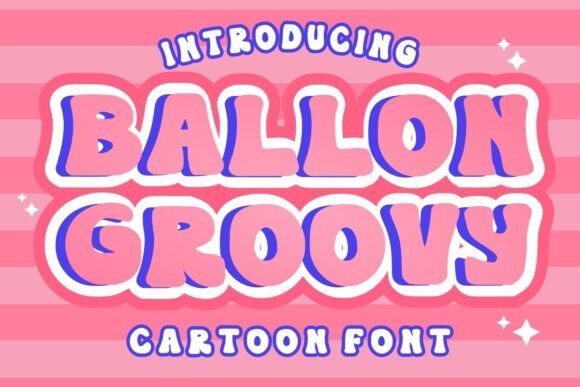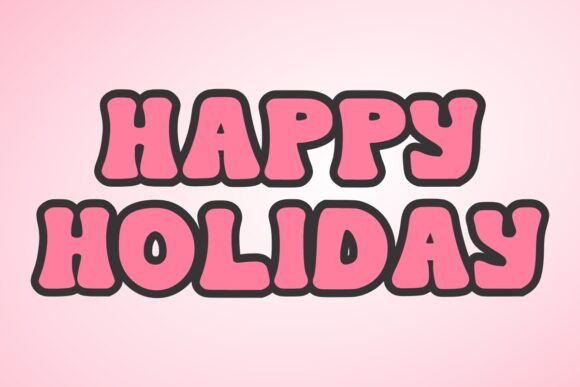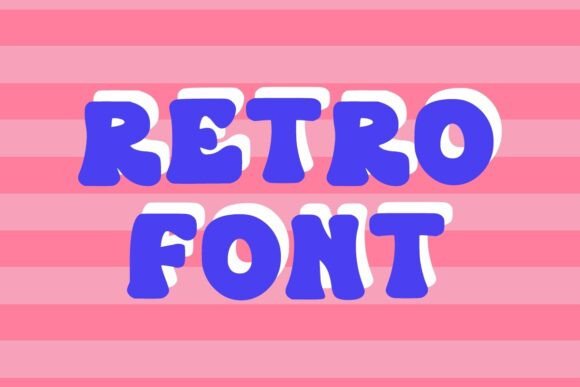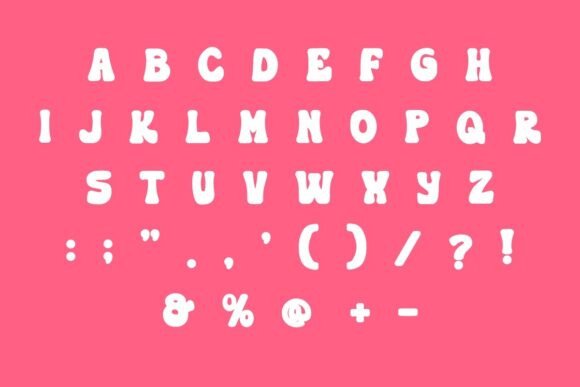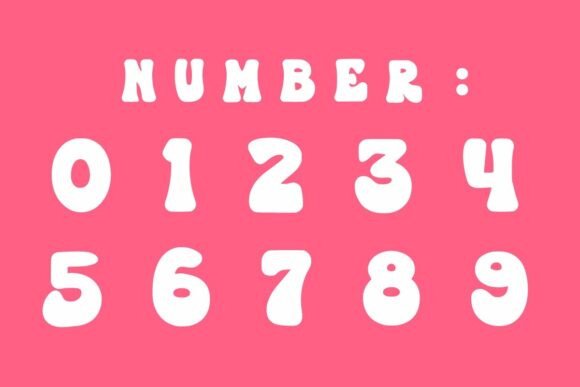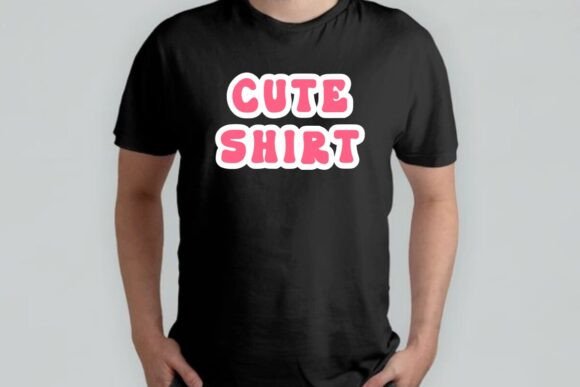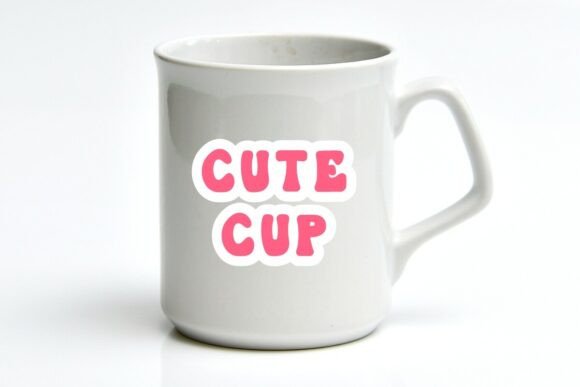
The Groovy World of Design
Who hasn’t felt the rush of creativity when brainstorming a new project? The ideas start flowing, and before you know it, you’re envisioning a vibrant poster, a funky logo, or a whimsical invitation. This is the moment when the perfect font can make all the difference. Imagine a font that captures the essence of the 60s and 70s, with its playful curves and dynamic flair.
Enter the Balloon Groovy Font, a fun and retro display font that’s sure to add a unique charm to your designs. Whether you’re creating a craft project, a gift tag, or a banner for a special event, this font is the perfect companion. Its versatility and charm make it an invaluable asset for designers looking to add a touch of whimsy to their work.
Key Features of Balloon Groovy Font
- Font Family: Balloon Groovy Font offers a unique, hand-drawn design with a playful and whimsical feel.
- Unique Characteristics: Features a distinctive, bubbly design with irregular shapes and lines, adding a touch of personality to any text.
Balloon Groovy Font Review
Overall, I’m quite fond of the Balloon Groovy Font. There are some aspects that genuinely shine through. ✨ Its playful and whimsical nature makes it perfect for creative projects or any design that requires a carefree vibe. The font’s rounded edges and bubbly feel add a sense of fun and approachability, which can be a great asset for certain types of designs.
Here are some specific features that I think work well:
- Highly customizable: The font can be easily adjusted to fit any color scheme or design style.
- Great for illustrations and graphics: The font’s playful nature makes it an excellent choice for illustrations and graphics that require a fun and energetic feel.
- Unique and eye-catching: The font’s distinctive design is sure to grab attention and stand out in a crowded design landscape.
However, there are some limitations to consider: ⚠️ The font may not be suitable for more formal or professional projects, as its playful nature may come across as unprofessional. Additionally, the font’s high customizability can sometimes lead to a disjointed or inconsistent look if not used carefully.
Overall, I think the Balloon Groovy Font is a great choice for designers who want to add a touch of whimsy and fun to their projects. With some careful consideration of its limitations, it can be a valuable addition to any designer’s toolkit.
Use the Balloon Groovy Font to add a playful and whimsical touch to your designs. It’s perfect for creating eye-catching headlines, social media graphics, and party invitations.
The Balloon Groovy Font is ideal for:
- Creating playful and fun designs
- Adding a whimsical touch to party invitations and social media graphics
- Designing eye-catching headlines and advertisements
Alternatives to Balloon Groovy Font
Great Vibes is a beautiful, handwritten font perfect for creating a whimsical and playful atmosphere. It’s ideal for use in posters, social media graphics, and advertisements that require a touch of elegance and sophistication.
Great Vibes Font is a more refined and elegant alternative to Balloon Groovy Font, with a more consistent and polished feel. While Balloon Groovy Font is more playful and bubbly, Great Vibes Font is more sophisticated and elegant.
Pacifico is a stunning, modern script font that’s perfect for creating a sense of luxury and sophistication. It’s ideal for use in high-end branding, packaging, and advertising that requires a touch of elegance and refinement.
Pacifico Font is a more refined and polished alternative to Balloon Groovy Font, with a more consistent and sophisticated feel. While Balloon Groovy Font is more playful and bubbly, Pacifico Font is more elegant and refined.